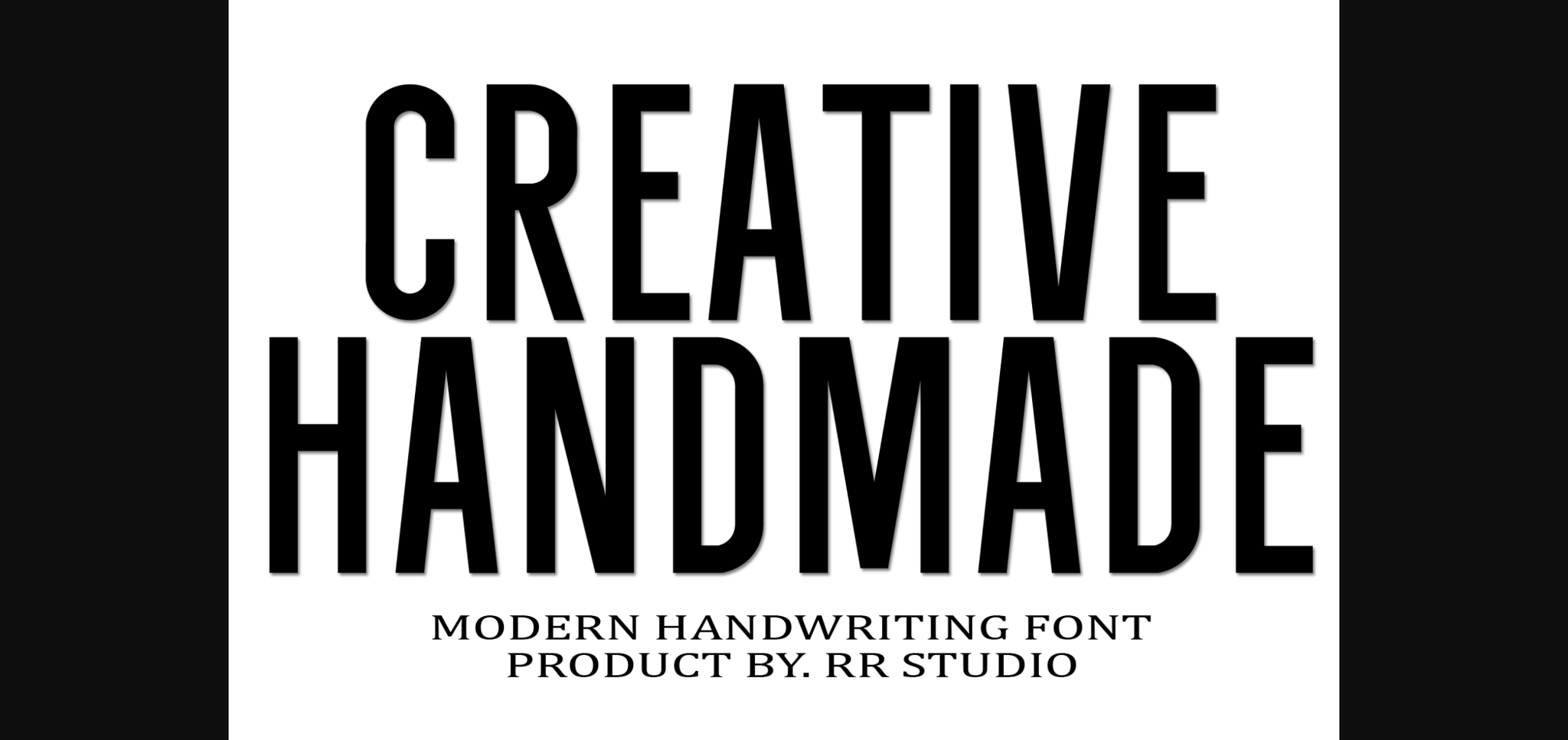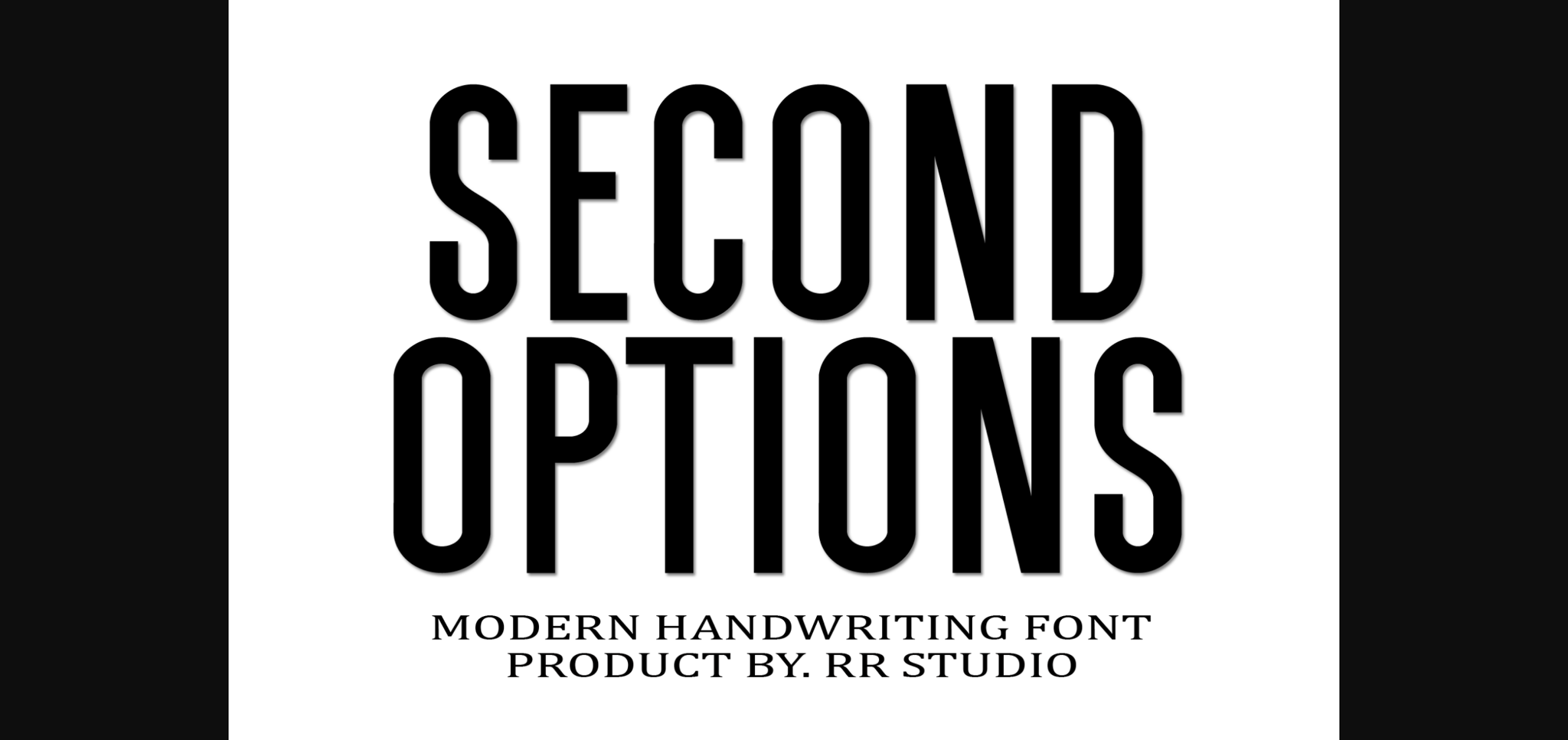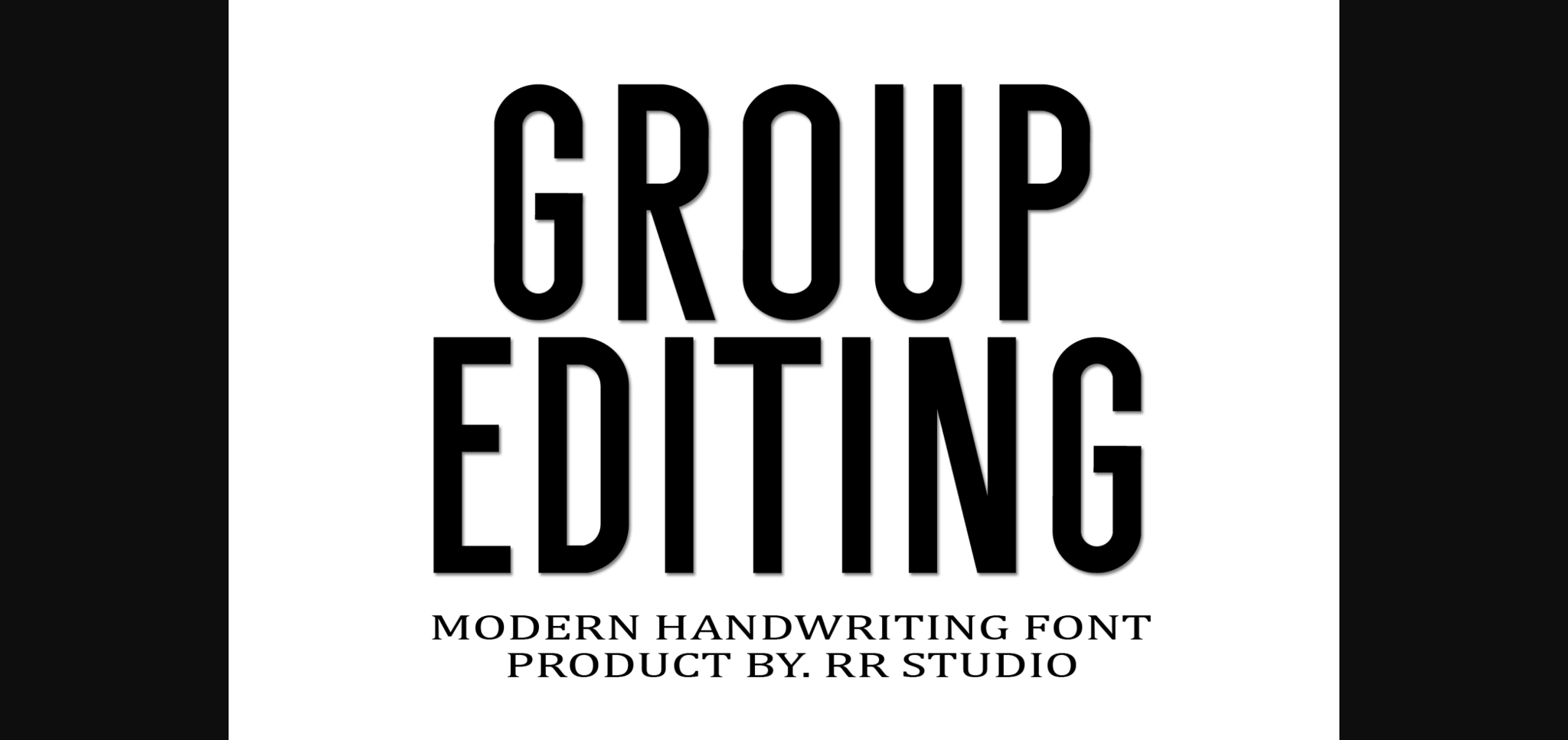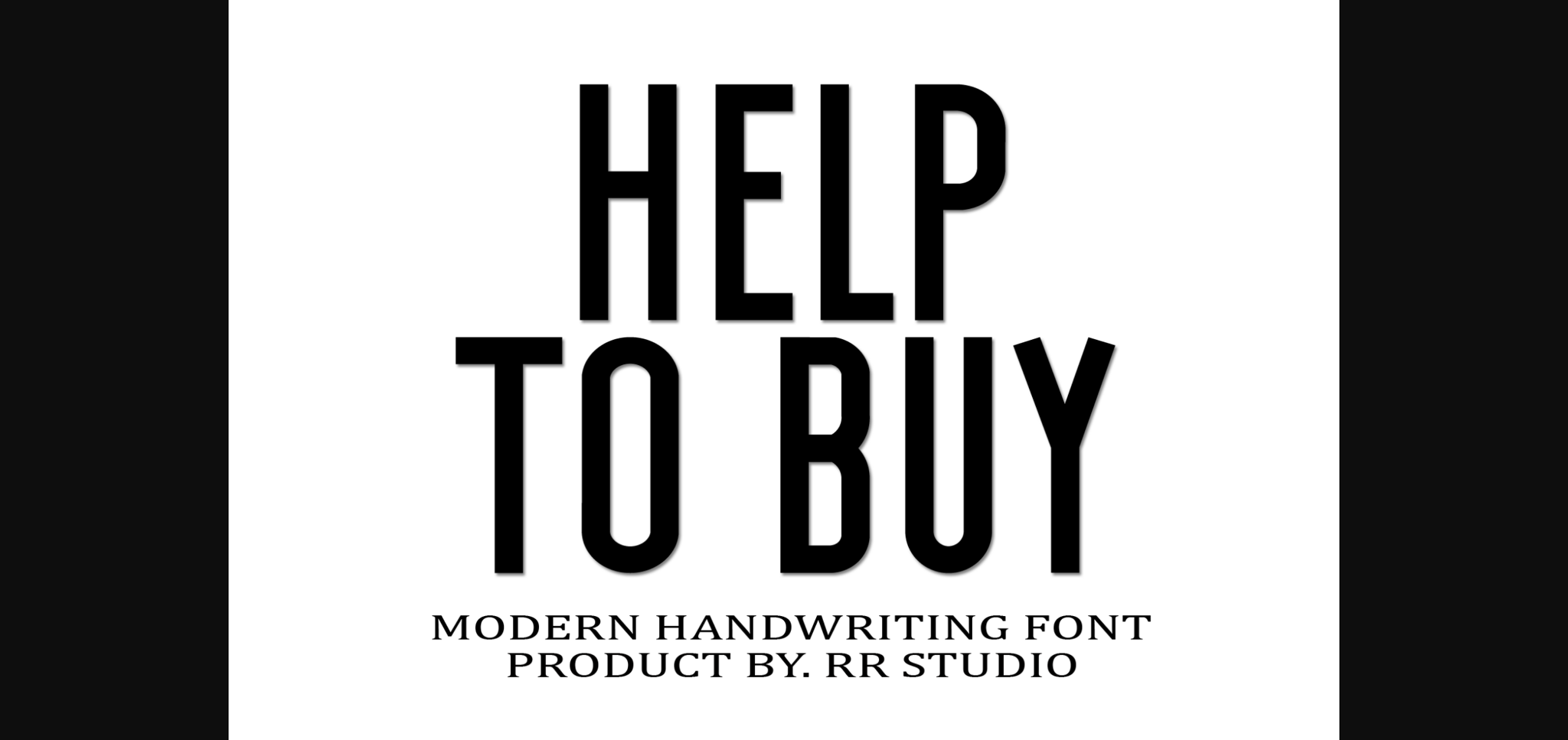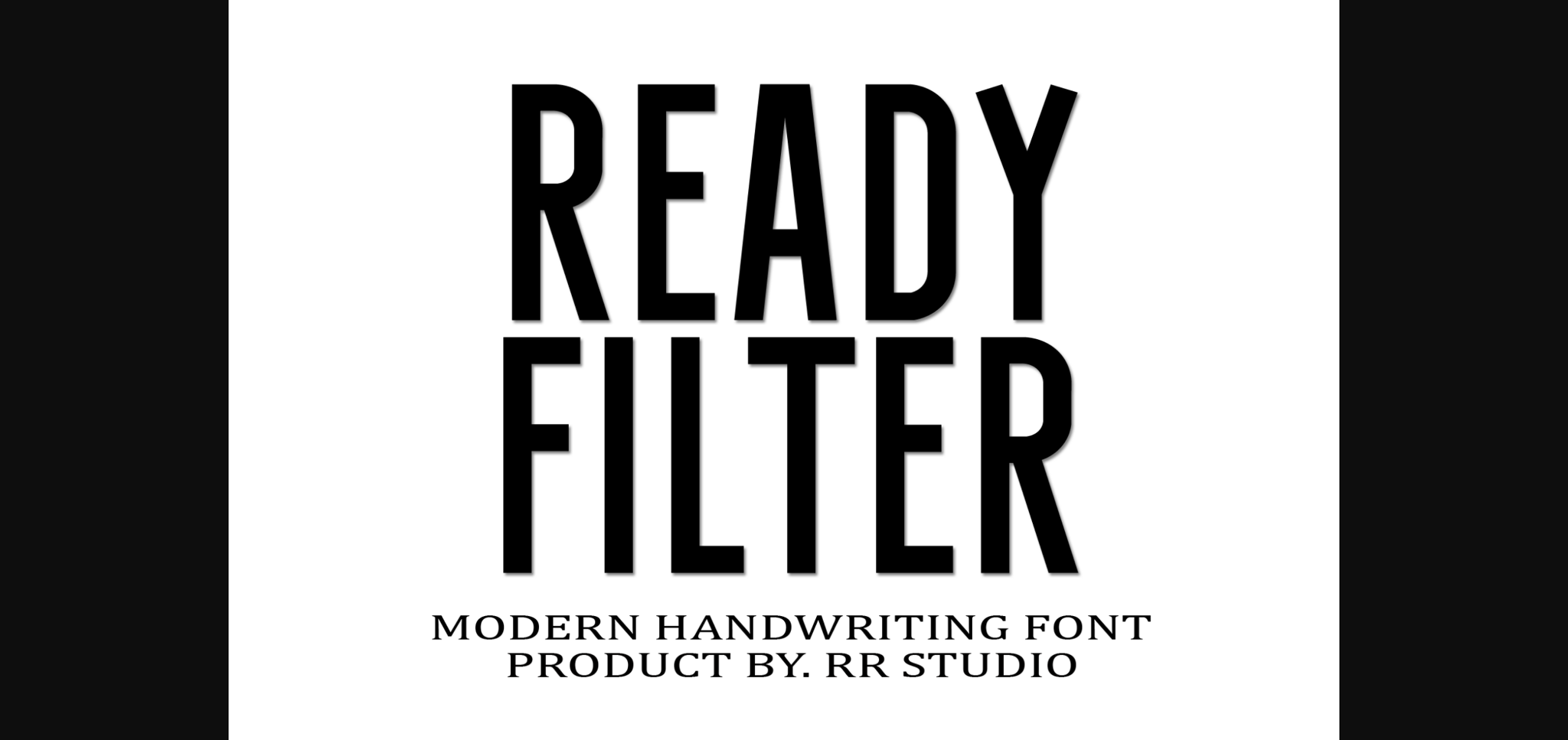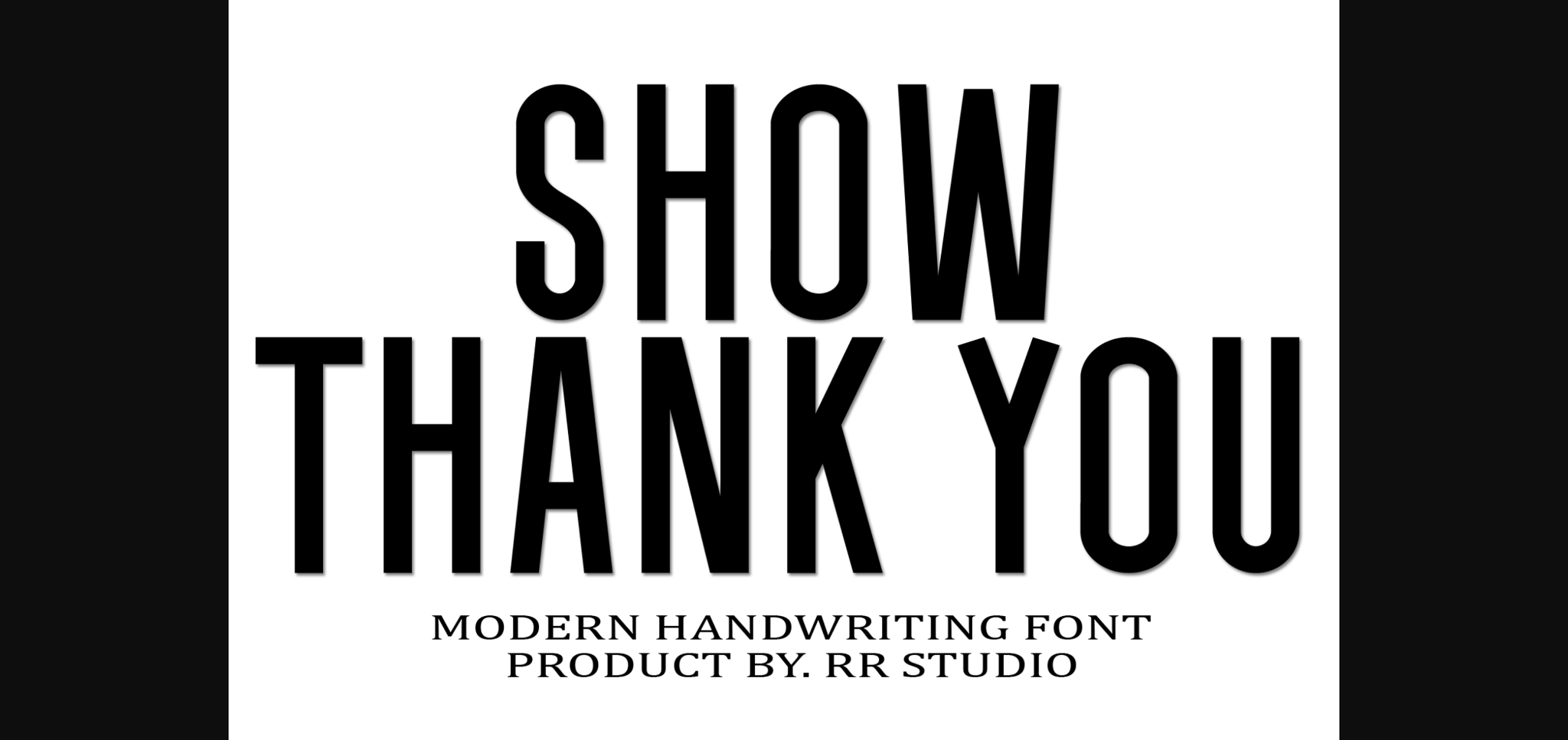
Creative Handmade Font
About Creative Handmade Font
Creative Handmade is a stylish and incredibly elegant sans serif font. It looks stunning on wedding invitations, thank you cards, quotes, greeting cards, logos, business cards and every other design which needs a handwritten touch.